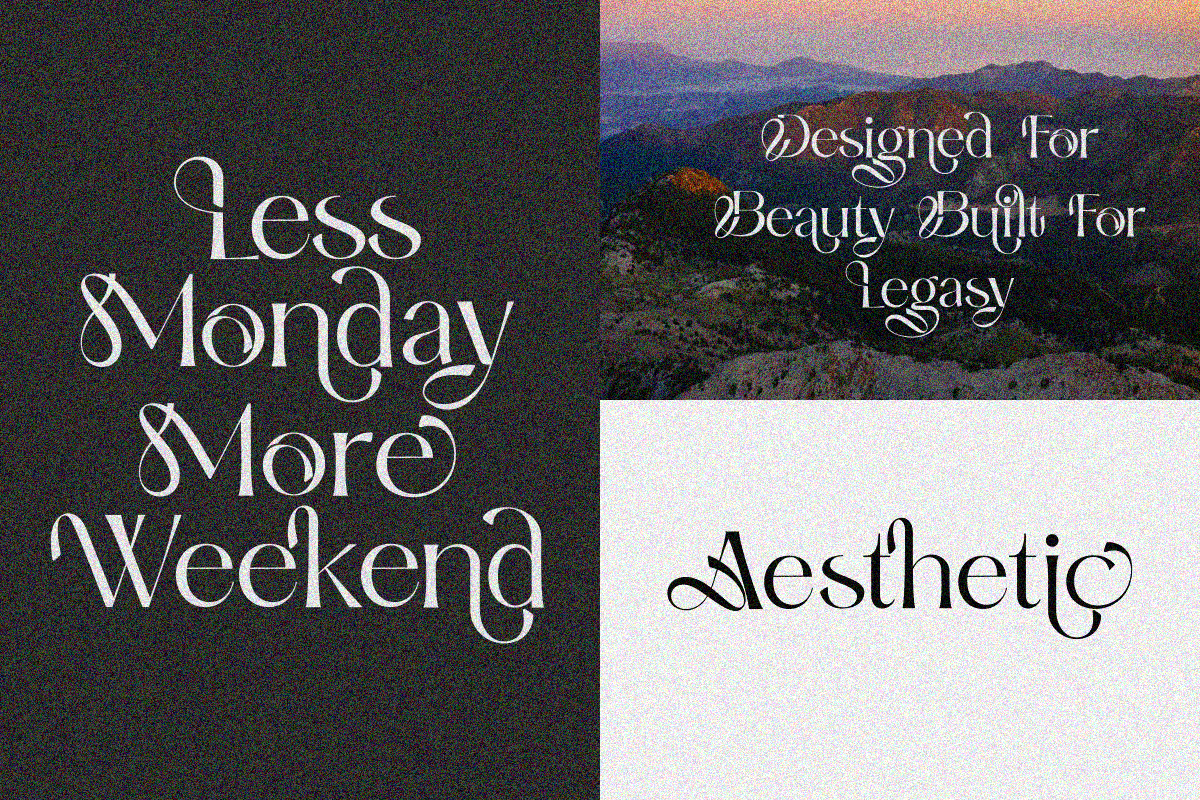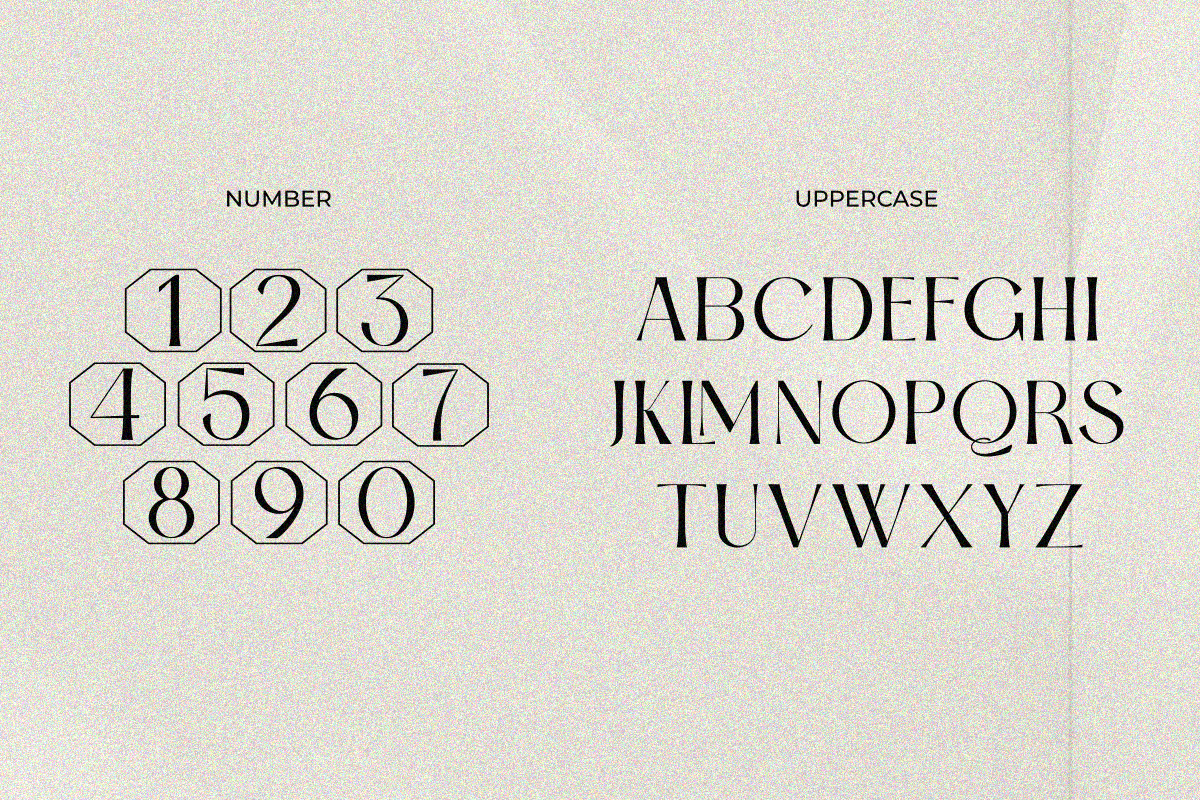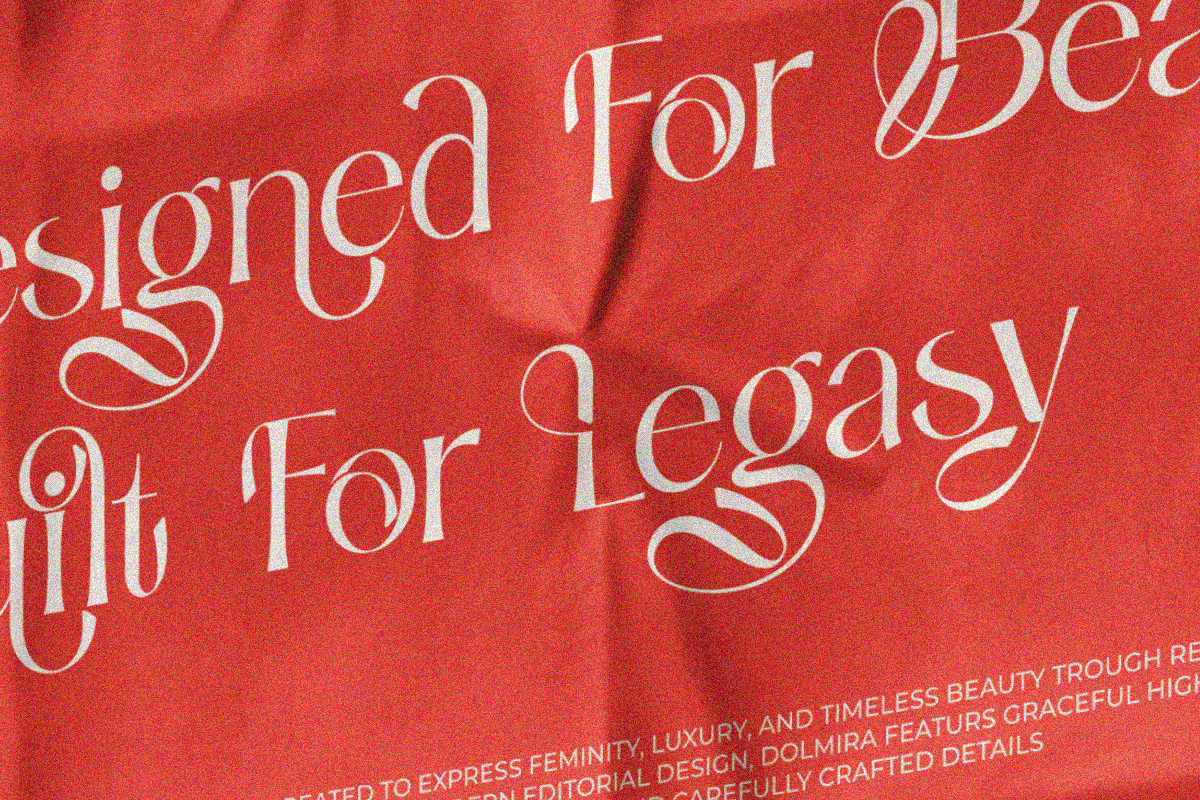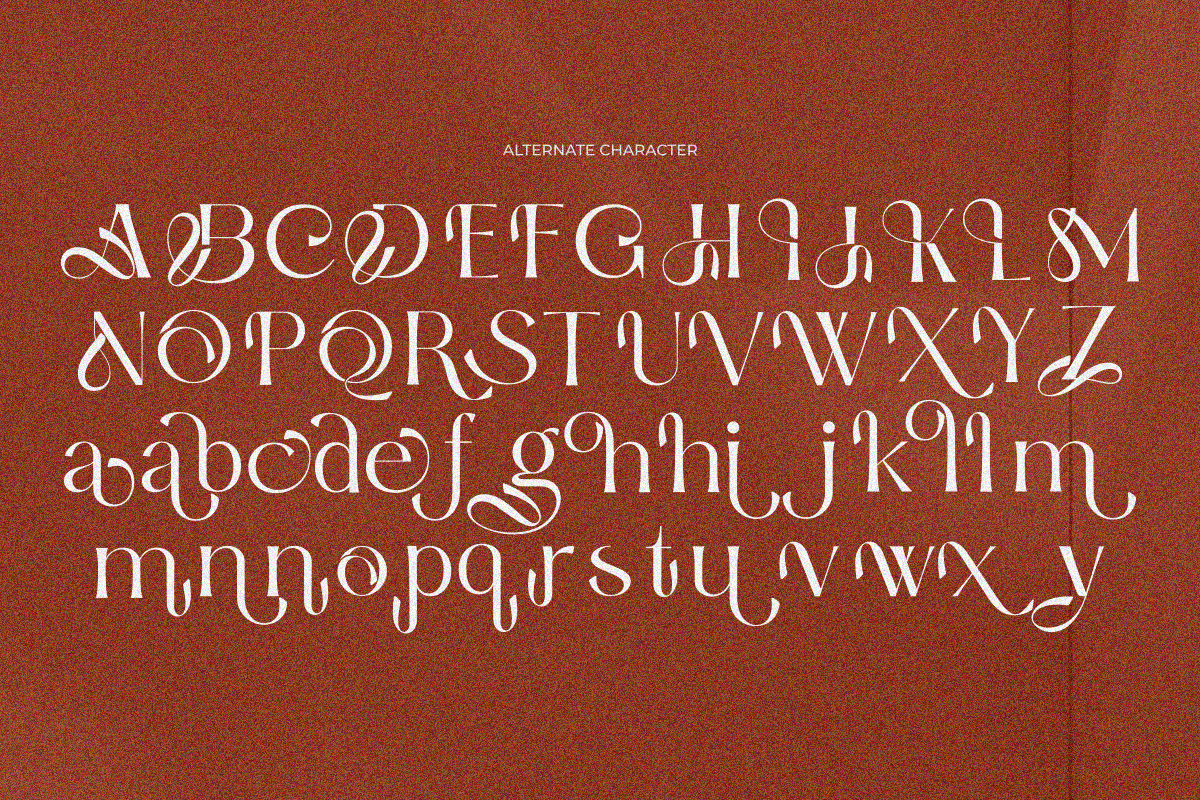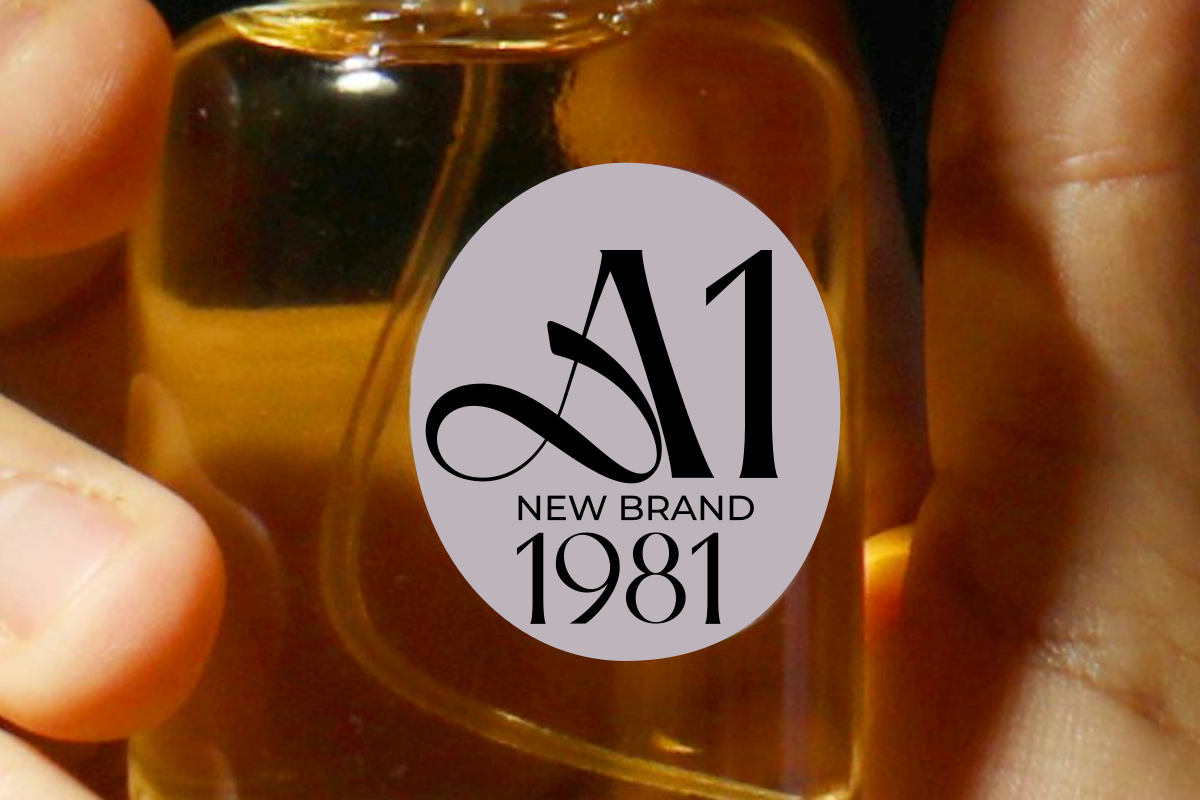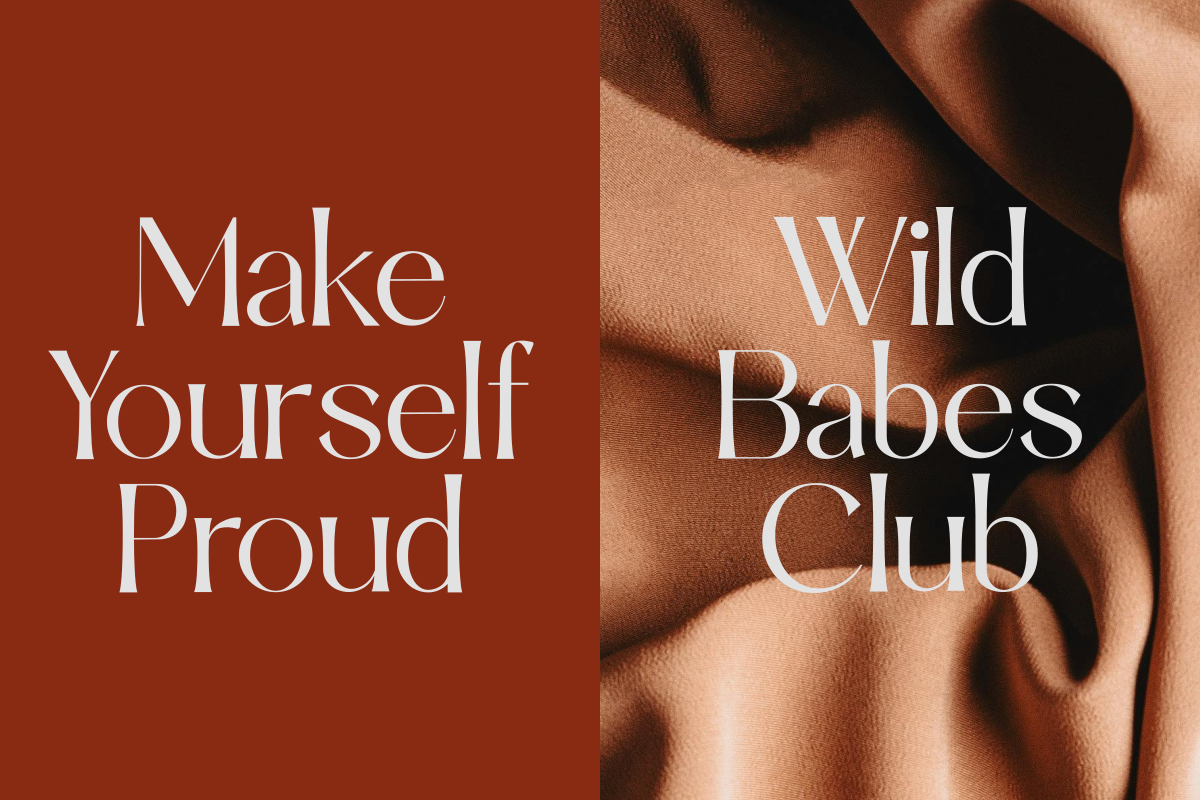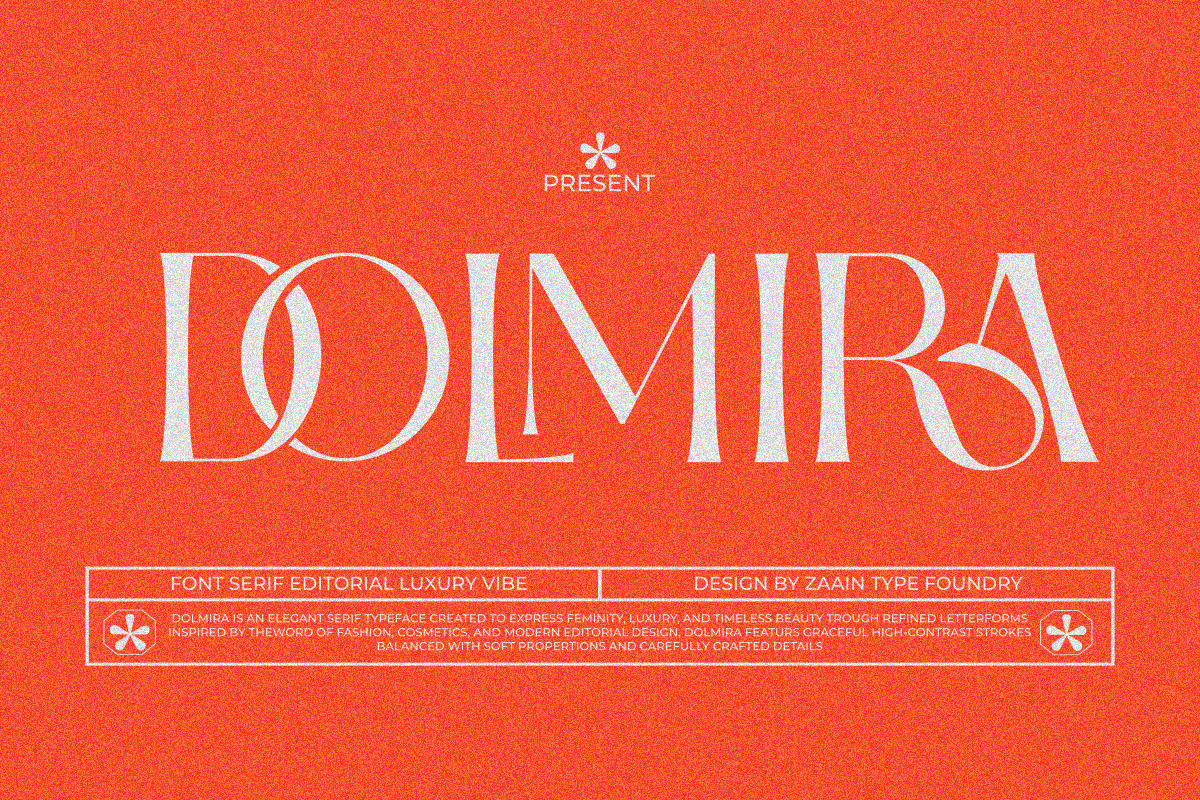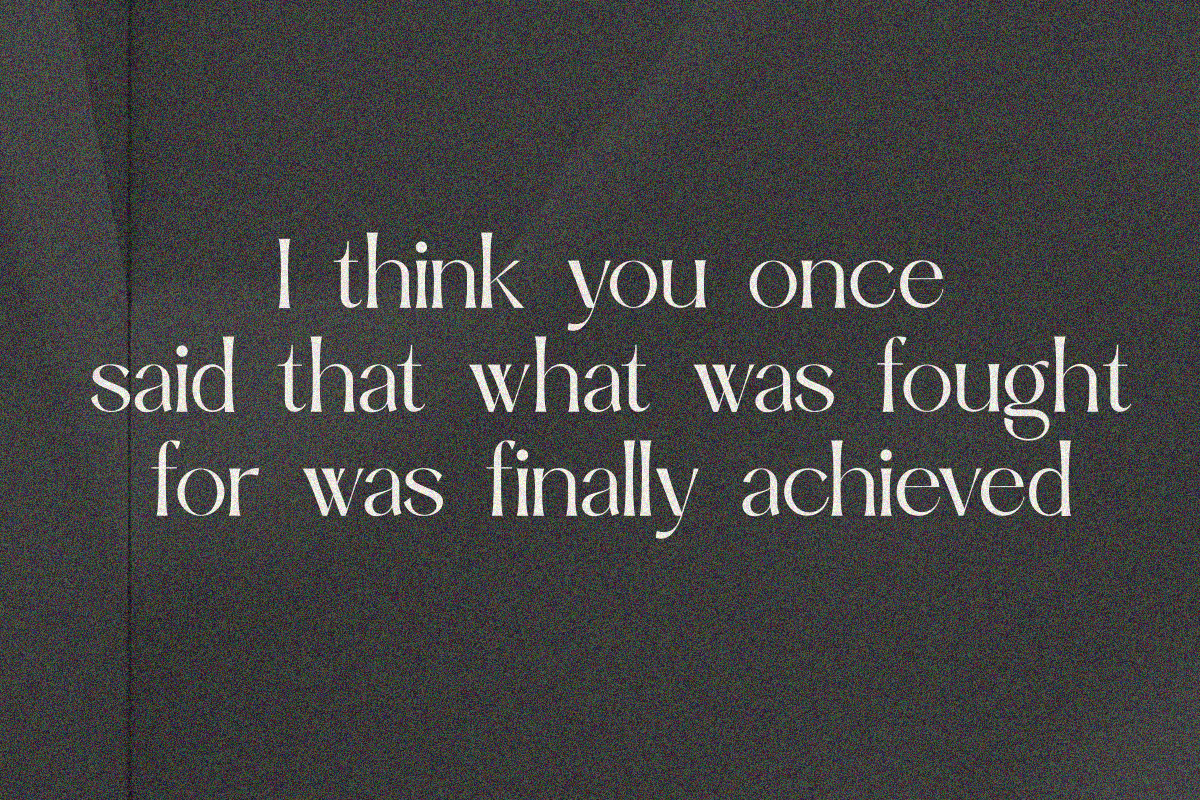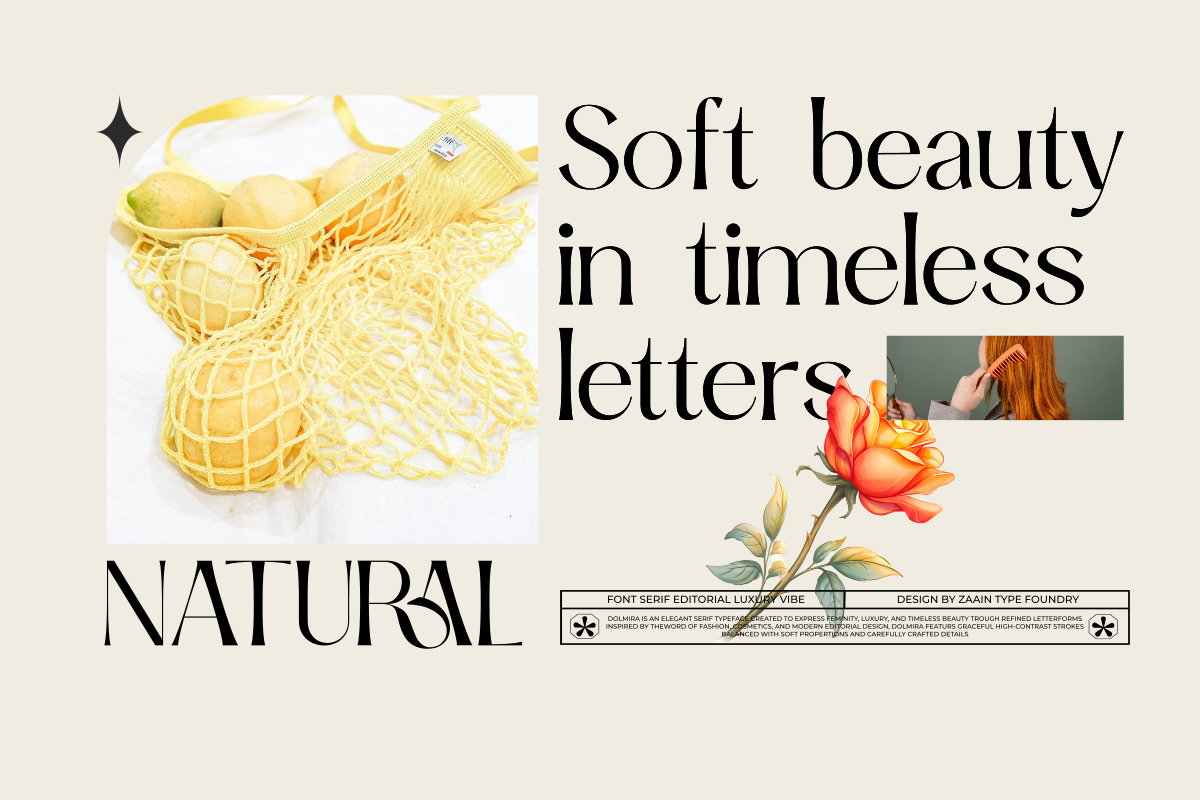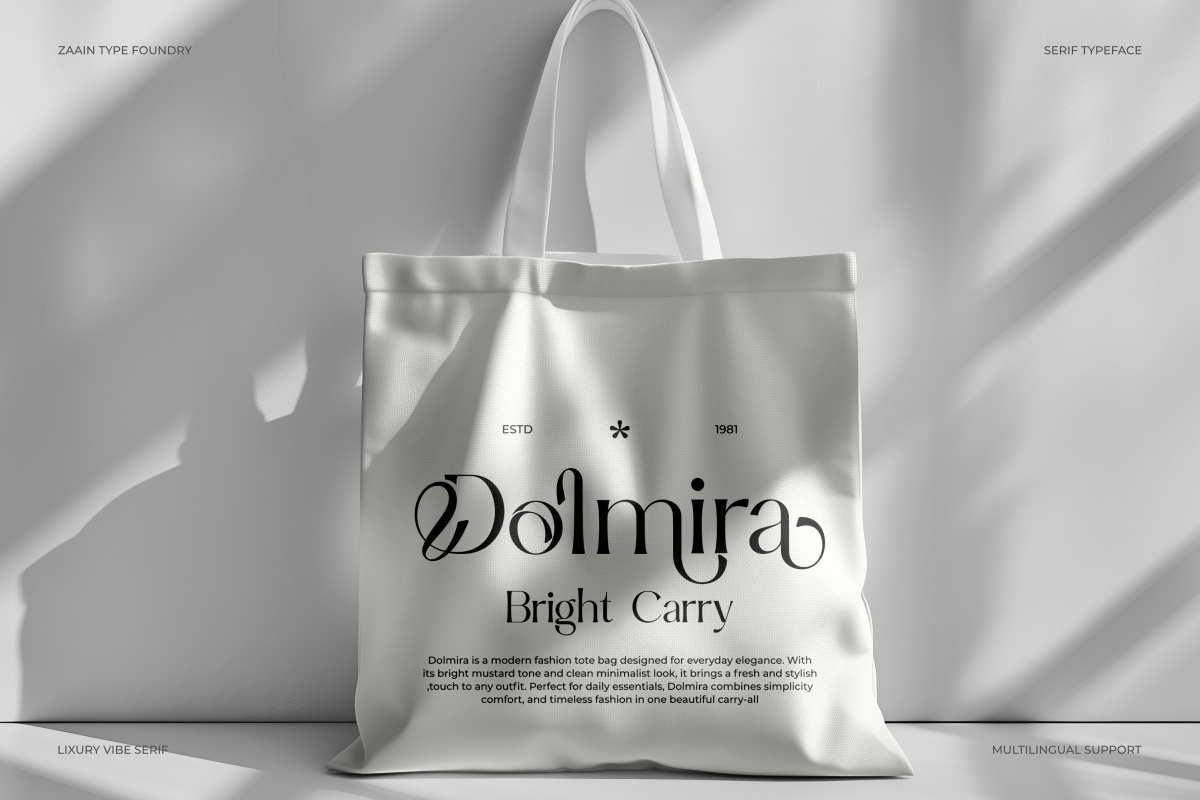
Dolmira
Dolmira is an elegant serif font that blends classic character with a refined modern touch. Featuring smooth thick-and-thin contrast, graceful letterforms, and luxurious details, Dolmira is perfectly suited for premium branding needs.
Designed to deliver a sophisticated and feminine impression, this typeface is an ideal choice for fashion, cosmetics, editorial layouts, exclusive invitations, logos, and high-end packaging design. Dolmira brings a timeless atmosphere with a clean and professional aesthetic With a strong yet gentle appearance, Dolmira is ready to become the centerpiece of any design that aims to look elegant and distinctive